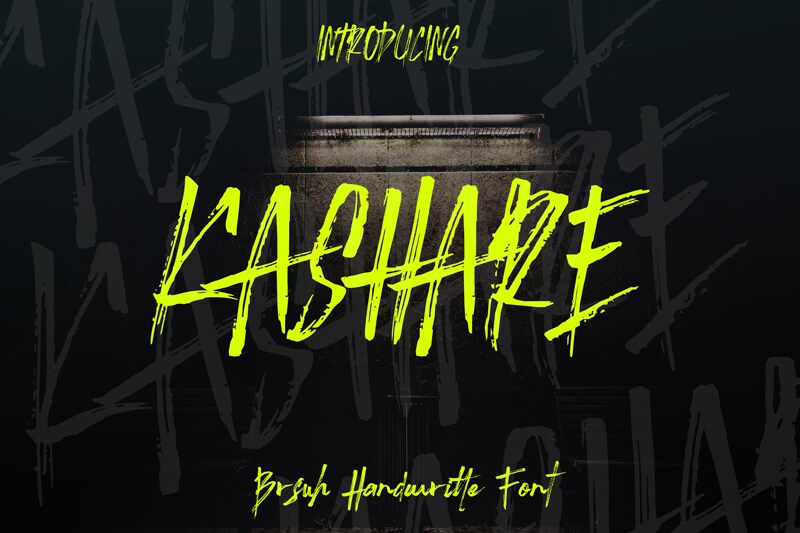
Kashare, the brilliant creation of designer Sifak Muf, captivates with its bold brush strokes and striking condensed form. This font exudes a dynamic yet elegant charm, bringing an artistic flair to any project. Each letter showcases distinctively raw edges and sweeping lines, capturing the essence of spontaneous brush artistry.
Perfect for crafting unique headlines, branding elements, or eye-catching posters, Kashare’s energetic and expressive nature ensures that your message stands out with confidence and style. Embrace Kashare’s exceptional aesthetic to infuse your designs with a touch of sophistication and creativity.